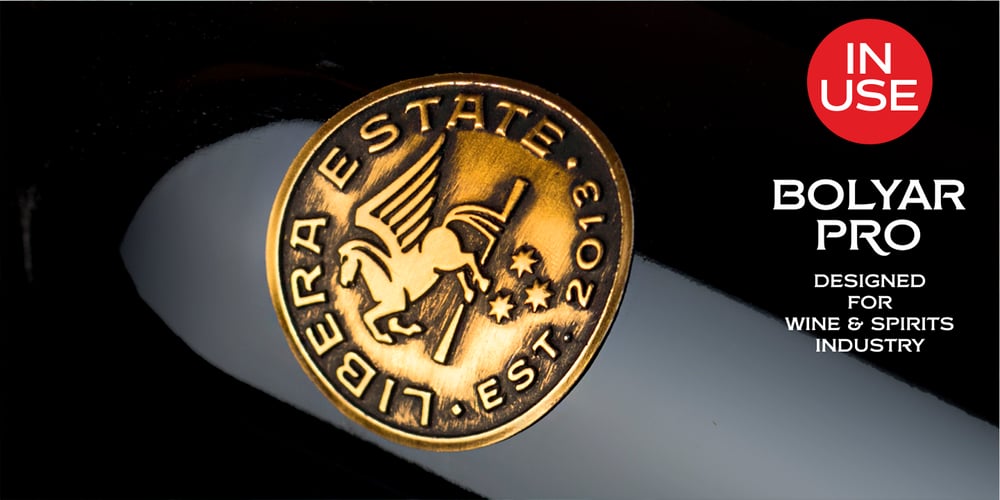
FM Bolyar Pro Font Family was designed by Jordan Jelev, Vassil Kateliev and published by The Fontmaker. FM Bolyar Pro contains 6 styles and family package options. Bolyar Pro type family is the ancestor of our successful font Bolyar. We decided to develop it to a new higher level – making it more sophisticated, detailed and useful at the same time. The new improved Bolyar is able to satisfy every typographic taste and meet the ever growing design requirements for high quality typefaces. If you are addicted to classic vintage style, then you could easily use Bolyar Pro for almost anything – from letterhead, logos and catchy headlines to elegant packaging, book covers and wine labels. Alternates, Swashes and Ligatures will help you customize almost every single letter and fit perfectly to your artwork. Bolyar Pro type family is showing an abundance of many new useful features and options like: – Five weights each sold as separate font – Over 1200 glyphs per weight – Full multilingual support of all European languages as well Greek and Cyrillic – Brand new Alternates and Swashes fully supported in all languages (even with accented characters) – Many useful ligatures – Full Open Type and True Type support for Mac and Win Platforms – New Bolyar Ornaments – a new complimentary font exclusively designed to fit the new Bolyar Pro, containig decorative shields, frames, ornaments and borders. Bolyar Pro font family is great for any kind of labels – in this link you could see some amazing examples how to use it alone or in combination with our Bolyar Ornate Pro font family.